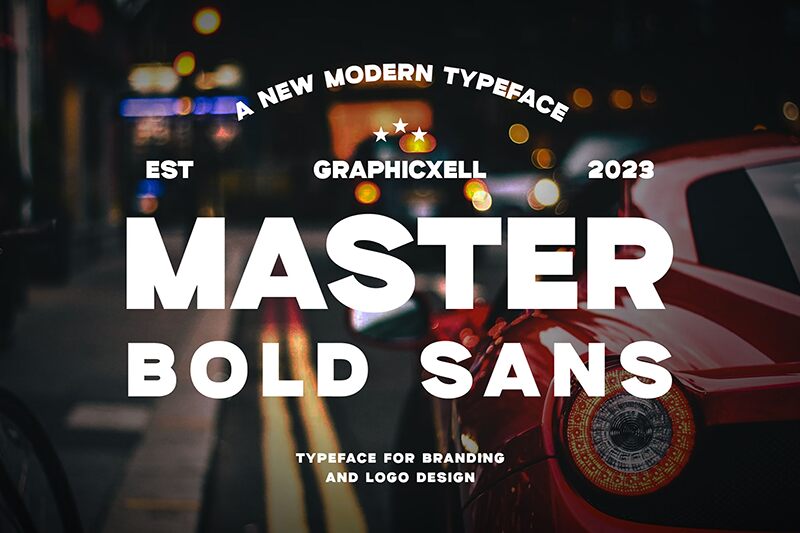
Master is a bold, expanded sans-serif font that exudes a commanding presence. Designed by Graphicxell, this typeface boasts a distinct, authoritative aesthetic that lends itself exceptionally well to a variety of applications.
Its thick, sturdy letterforms convey a sense of strength and confidence, making it an ideal choice for headings, logos, and branding materials that require a strong, impactful visual identity. The expanded width adds visual weight and a touch of modern flair, ensuring the font stands out in both digital and print environments.
Master's versatility extends to editorial design, advertising campaigns, and even signage, where its striking appearance can effectively capture attention and establish a powerful brand presence.
Master